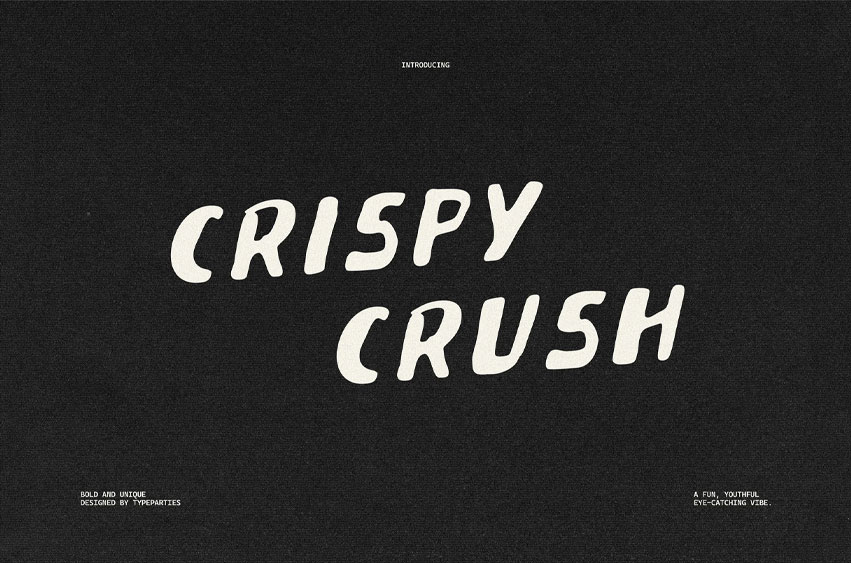
Crispy Crush Font
Crispy Crush Font is a bold retro display font with groovy, organic curves that capture the playful spirit of the 60s and 70s. Its chunky bubble-like shapes, hand-drawn character, and quirky rhythm make it the perfect typeface to bring a fun, nostalgic vibe into your creative projects.
This font is designed to stand out — every letterform feels alive, slightly imperfect, and full of personality. Inspired by psychedelic posters, vintage packaging, and funky lettering styles from the past, Cryspy Crush gives your design that eye-catching wow factor. Whether you want to create a vibrant project, this font will instantly elevate your work.